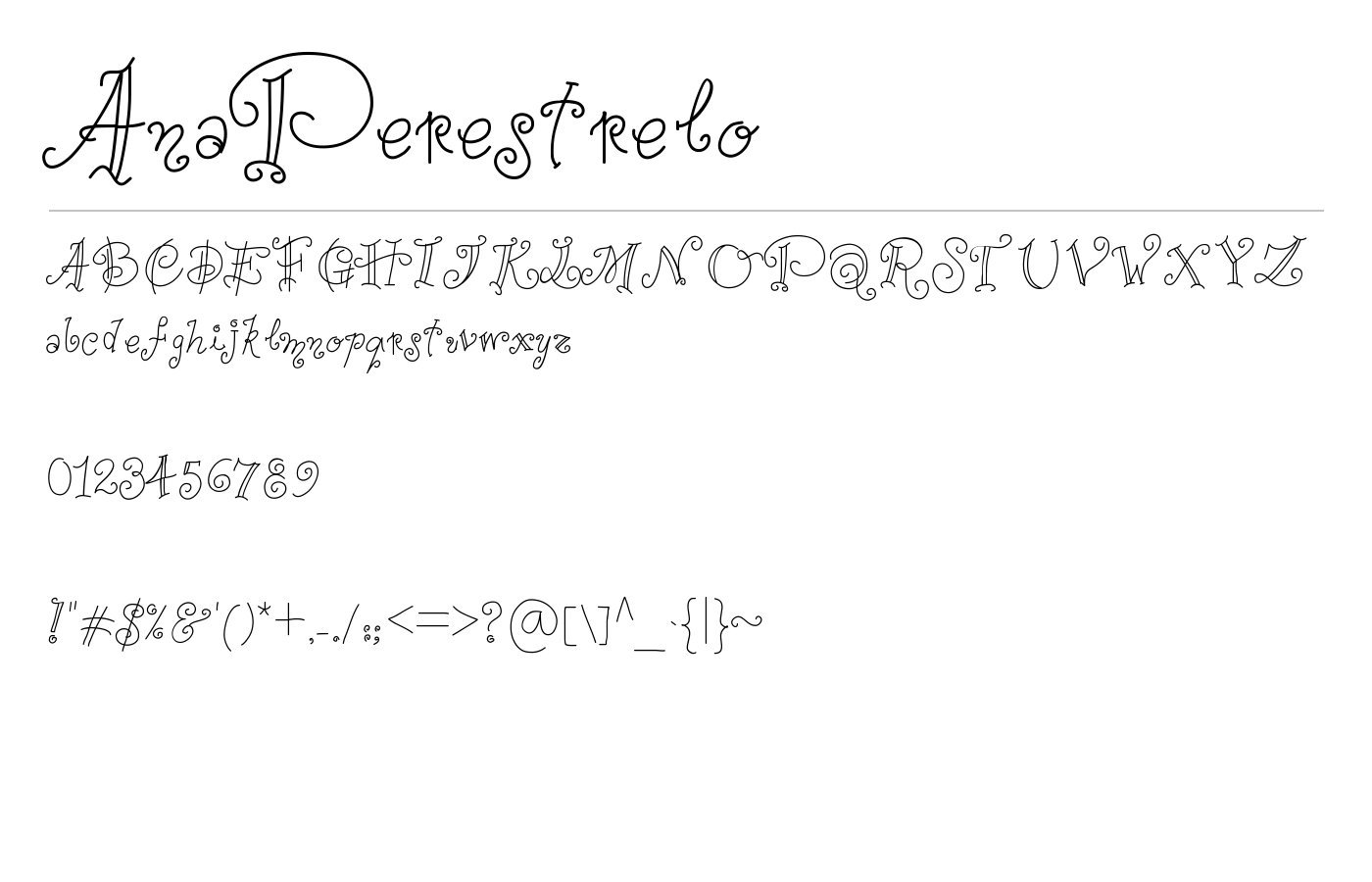
AnaPerestrelo is a delicate and whimsical script font with fine, intricate lines and charming ornamental details, giving it a playful and artistic personality. Its light weight and airy letterforms create an elegant yet quirky feel, ideal for creative projects, invitations, or branding that seeks a unique, handcrafted touch. This font shines in decorative uses where it can bring a touch of elegance and individuality without sacrificing readability.
AnaPerestrelo Font
About AnaPerestrelo Font